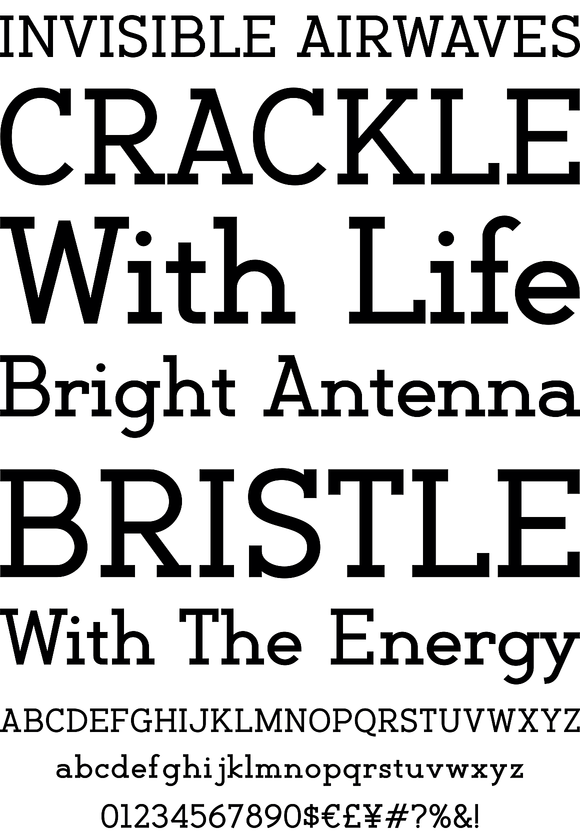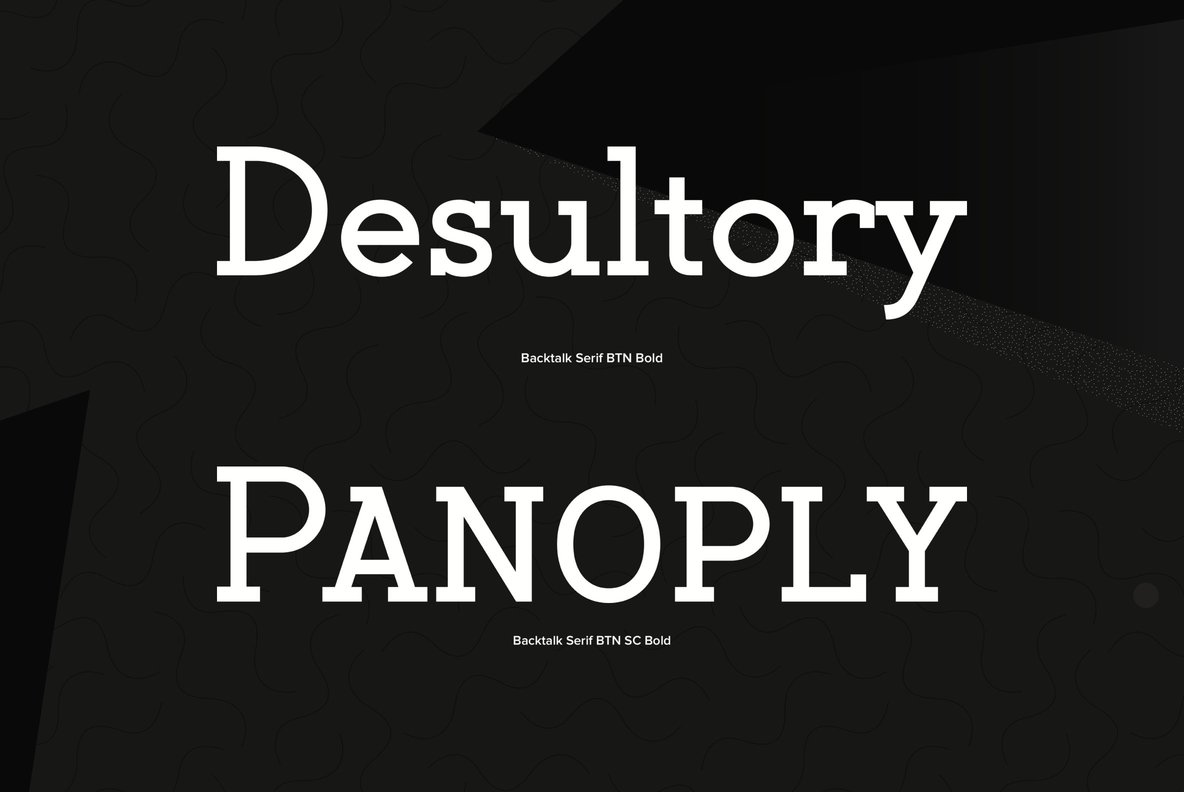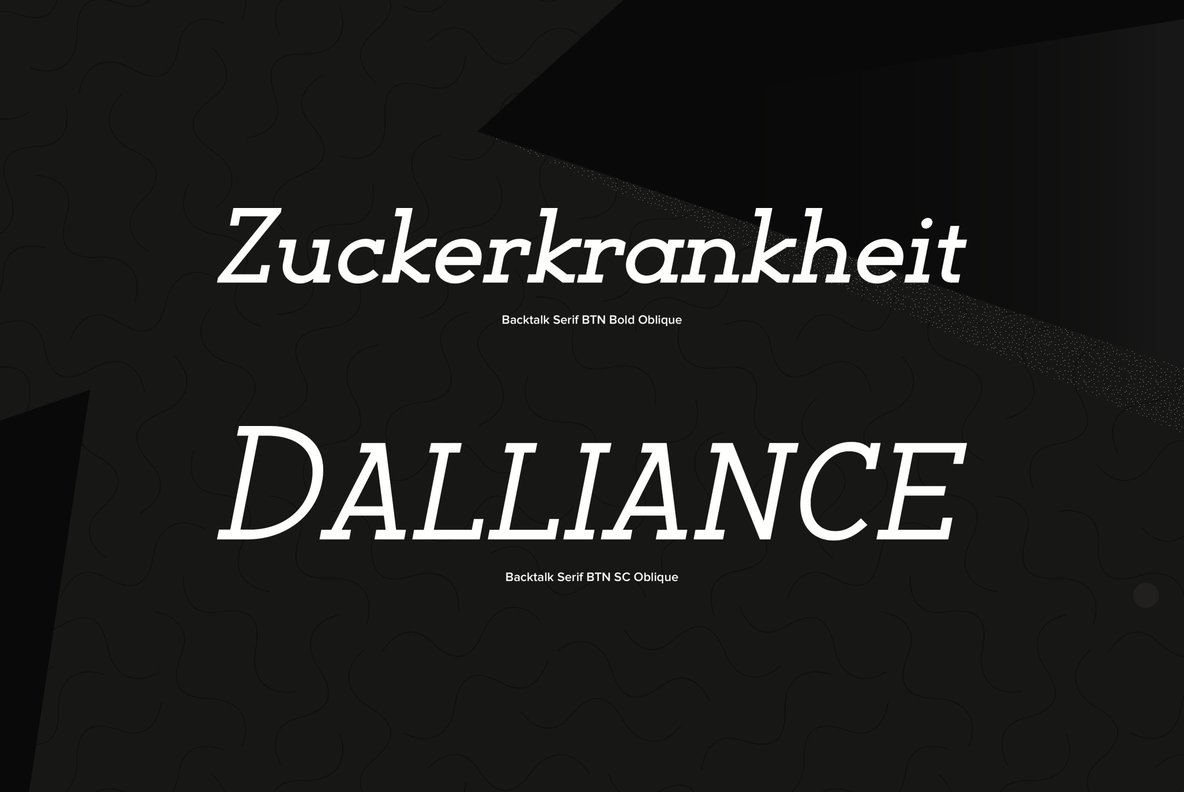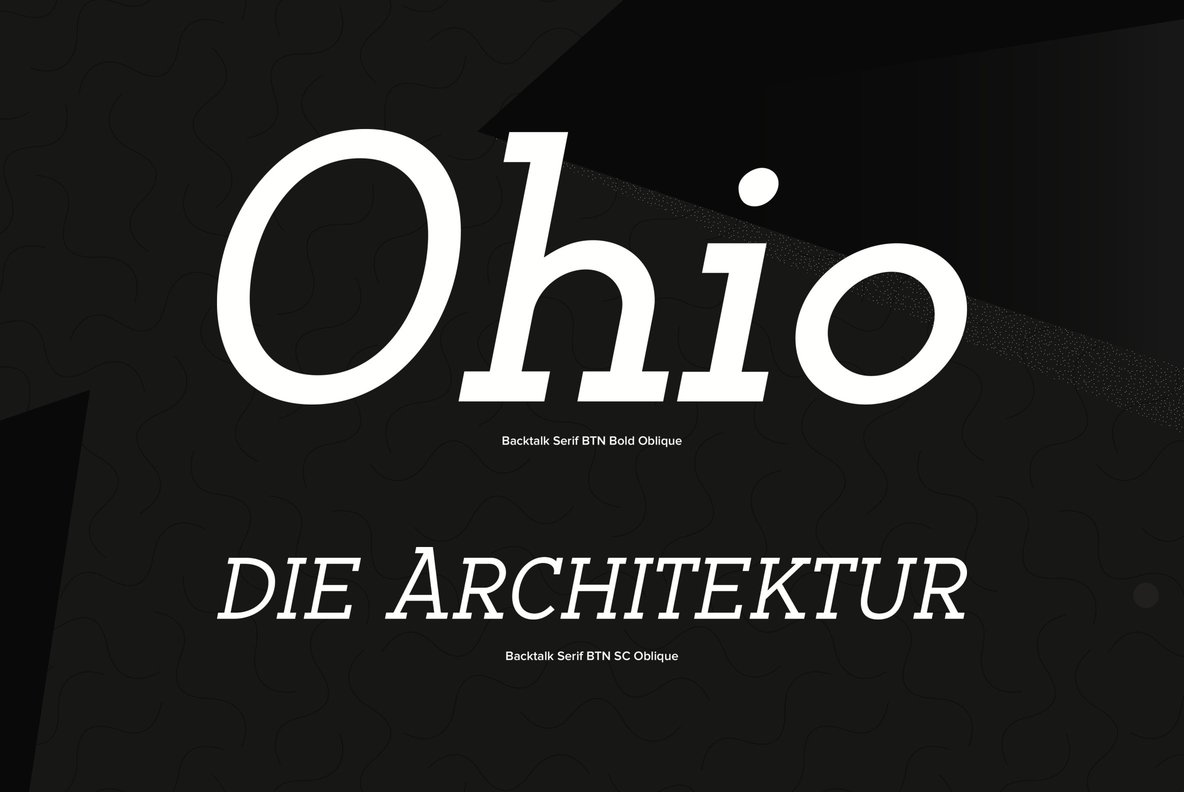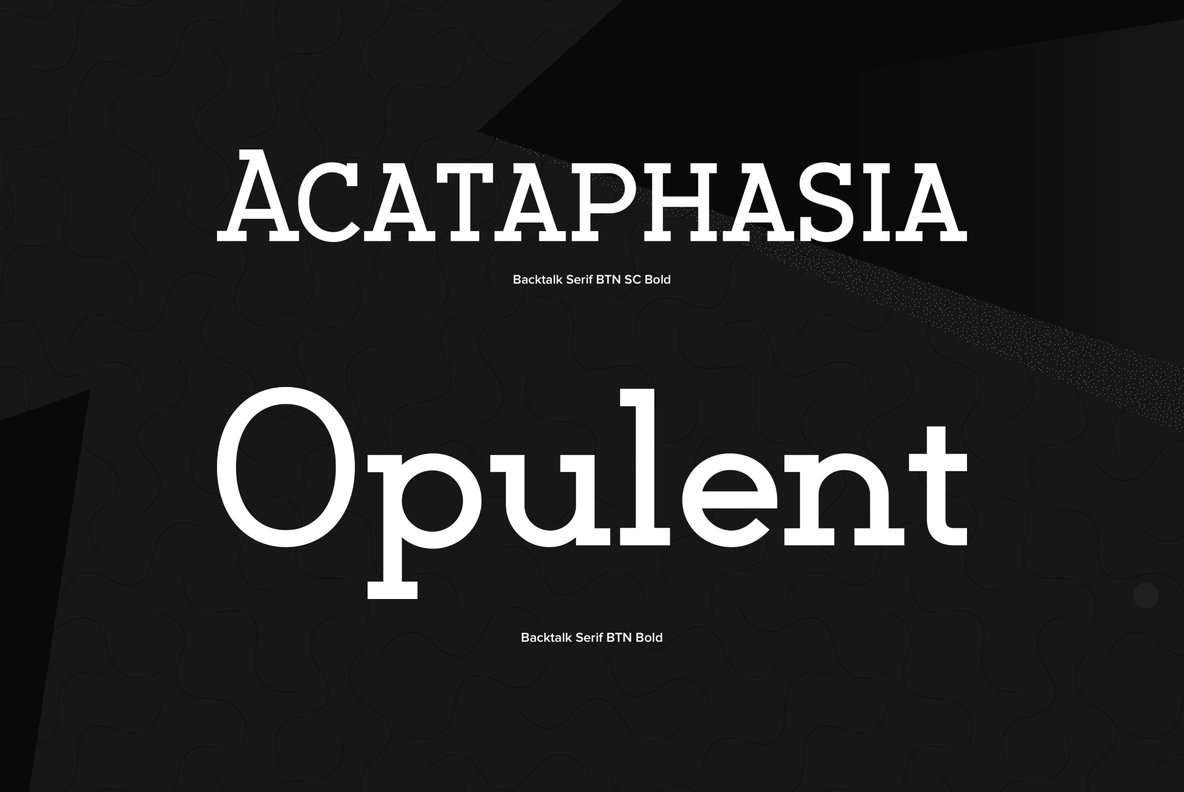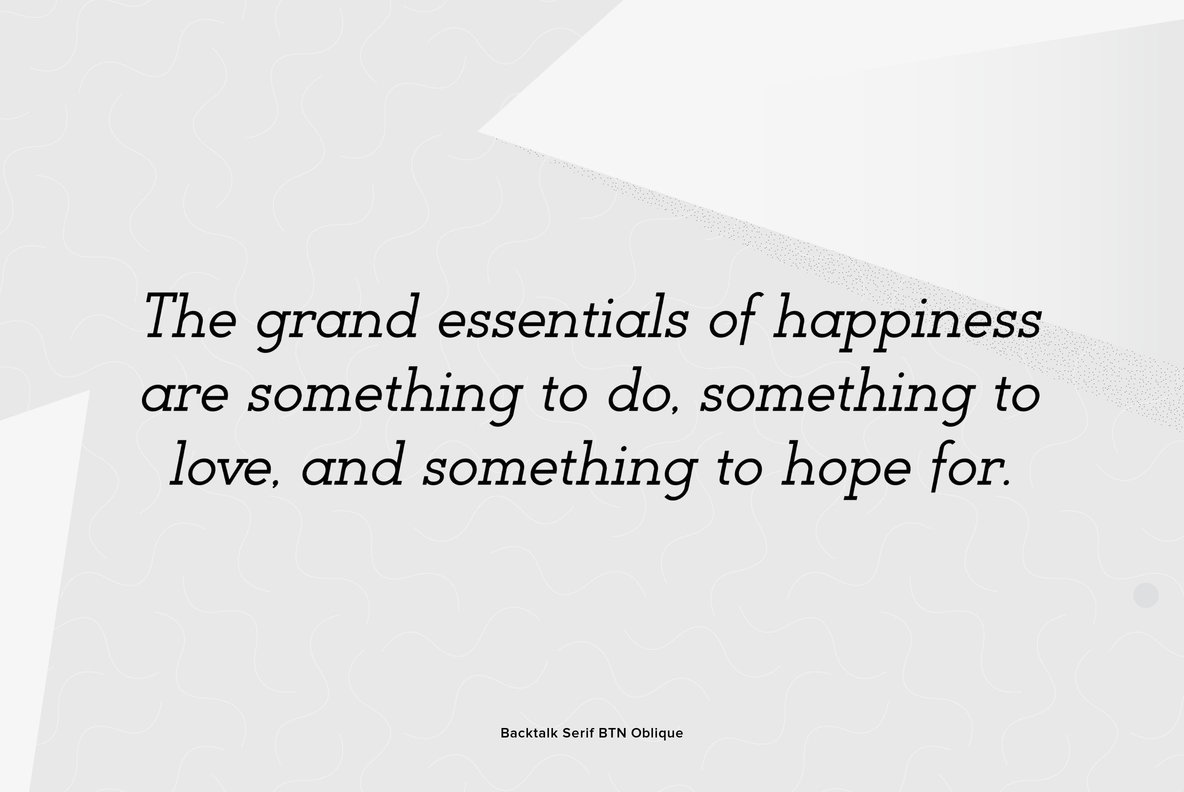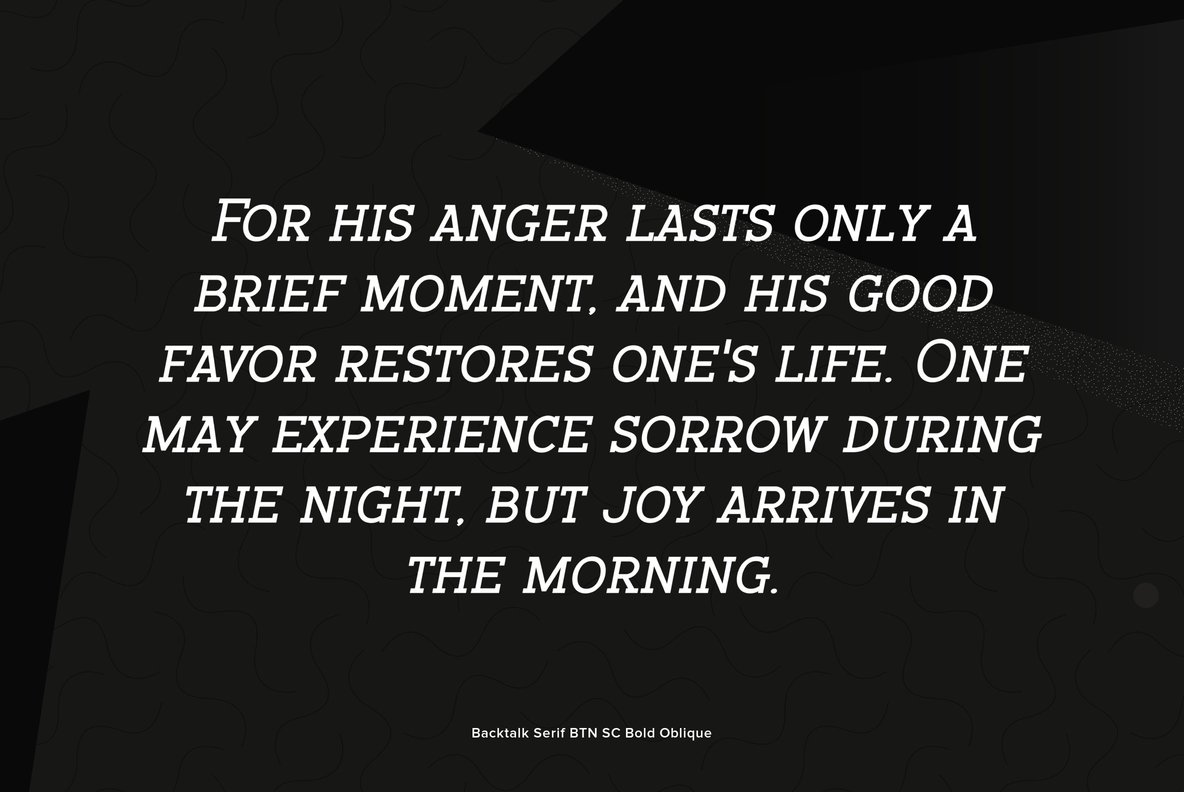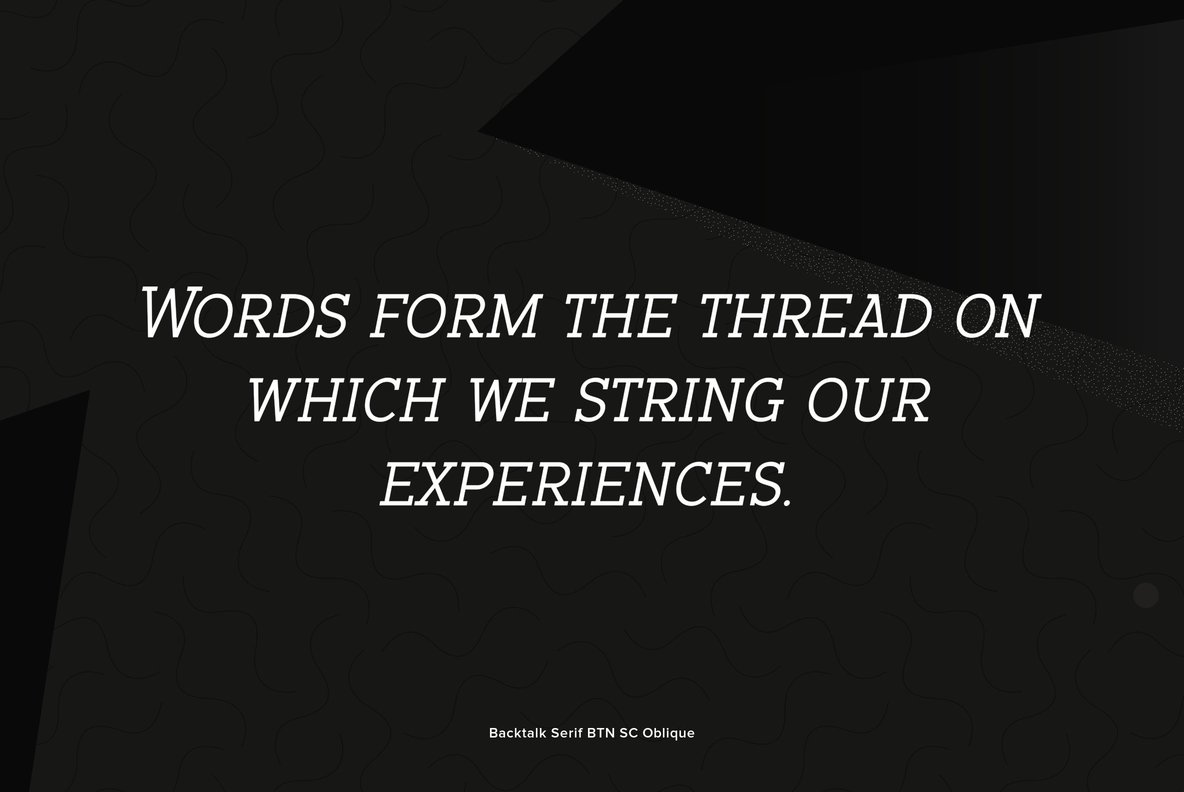
Backtalk Serif
Foundry: Breaking The Norm
Backtalk Serif is a clean geometric serif font family that takes a clean simple straight-forward approach to legibility. Inspired by humanist and geometric letterforms, the Backtalk family creates its own honesty with a hint of personality.